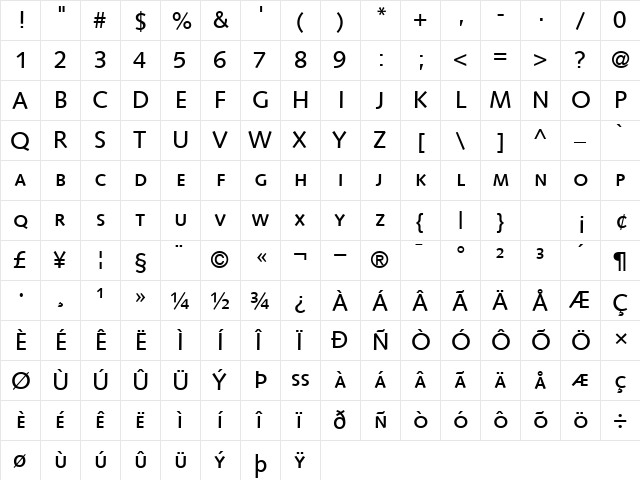
UnisynMedium Caps
Design Context for UnisynMedium Typeface
UnisynMedium takes a measured approach to typography — its balanced proportions and neutral character make it a reliable workhorse for both digital and print work.
Pro Tip: Use UnisynMedium in both headline and body roles to test its range before committing to a single application.